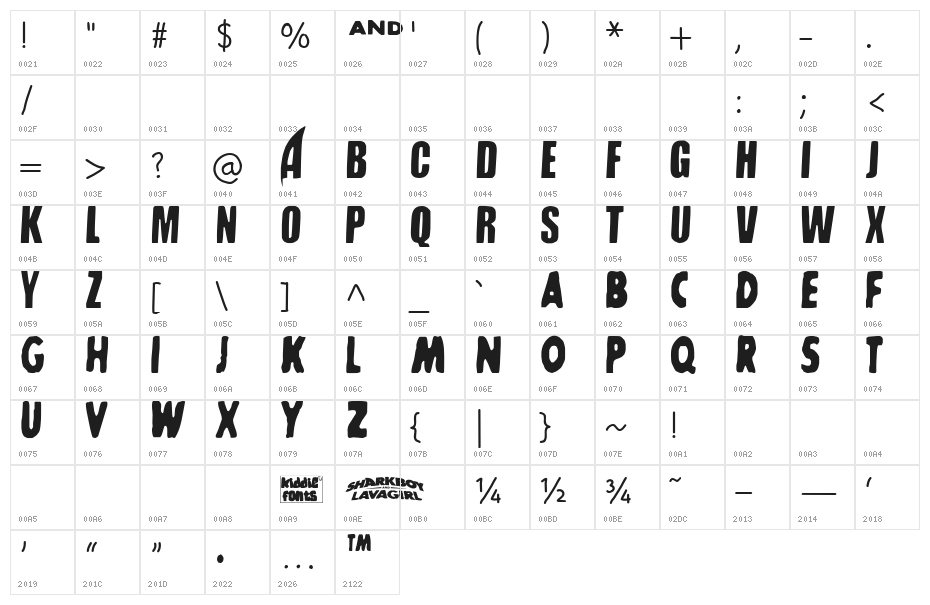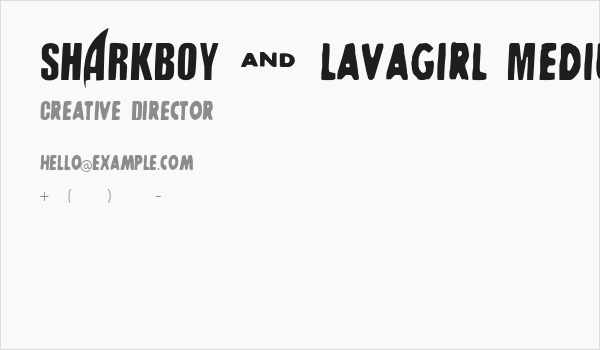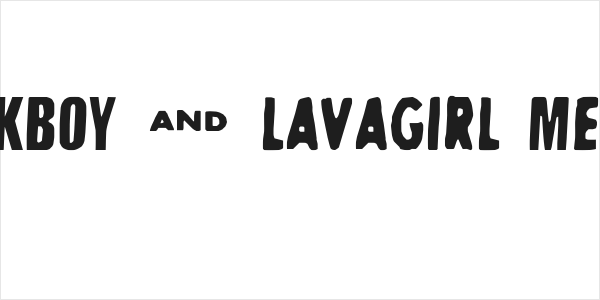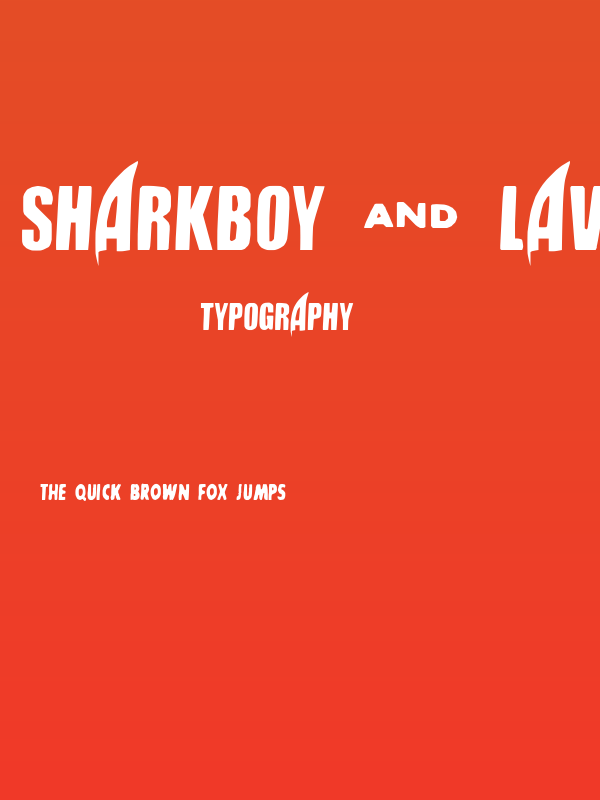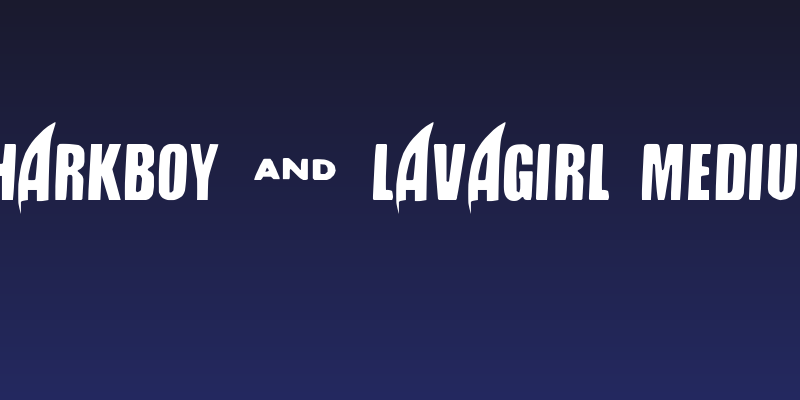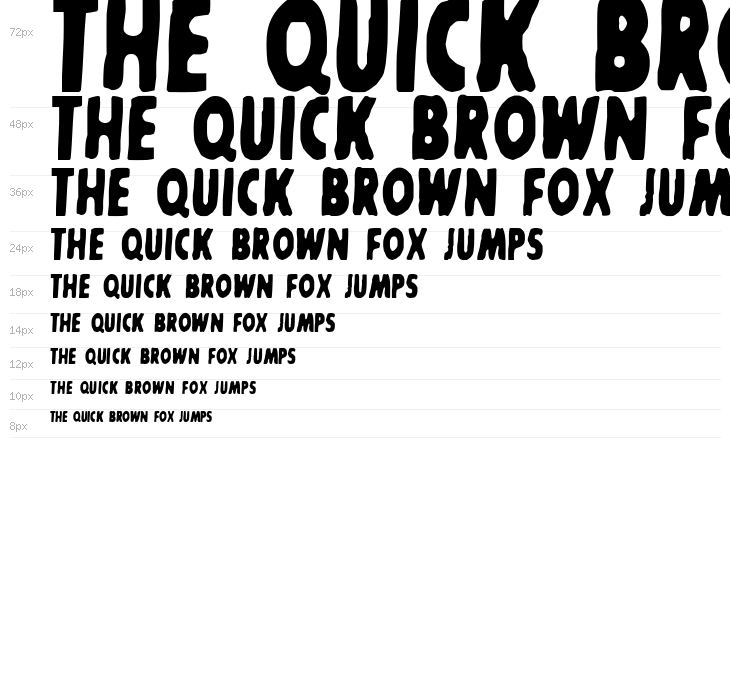
SHARKBOY & lavagirl Medium Font
SHARKBOY & lavagirl Medium Description
This font features a bold and playful style with a distinctively chunky and rounded appearance. The uppercase letters are particularly eye-catching, with a slightly irregular shape that adds a whimsical touch. The lowercase letters maintain the same playful essence, making the font suitable for creative and fun projects. The numbers and special characters are consistent with the overall style, ensuring a cohesive look across different text elements. The font's unique personality makes it ideal for projects that require a bold and engaging visual impact.
| Overall Style | Playful, Whimsical, Bold |
| Use Case | Headlines, Posters, Branding |
| Proposed Projects | Ideal for children's book covers, playful branding, posters, and any project requiring a fun and engaging typeface. |